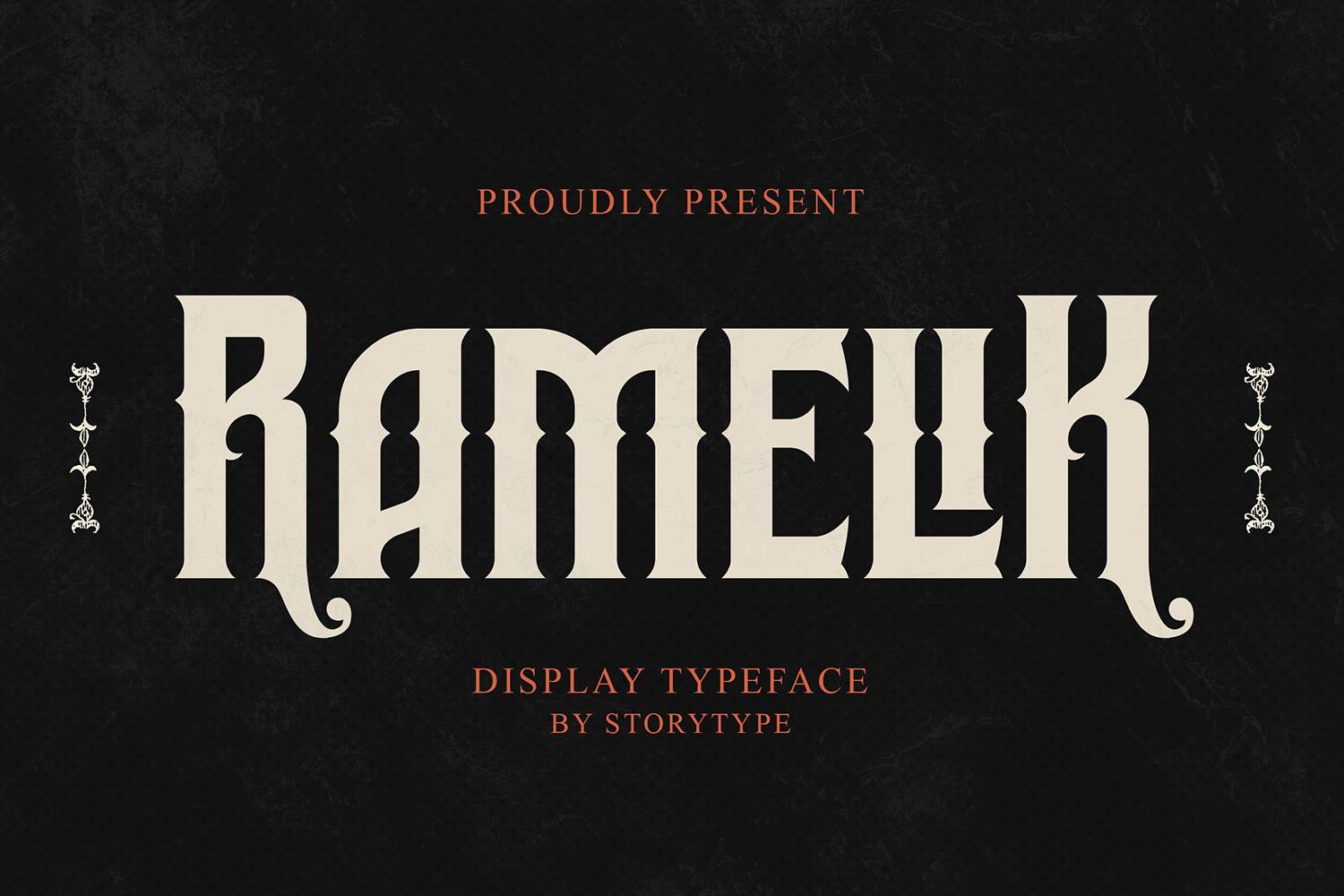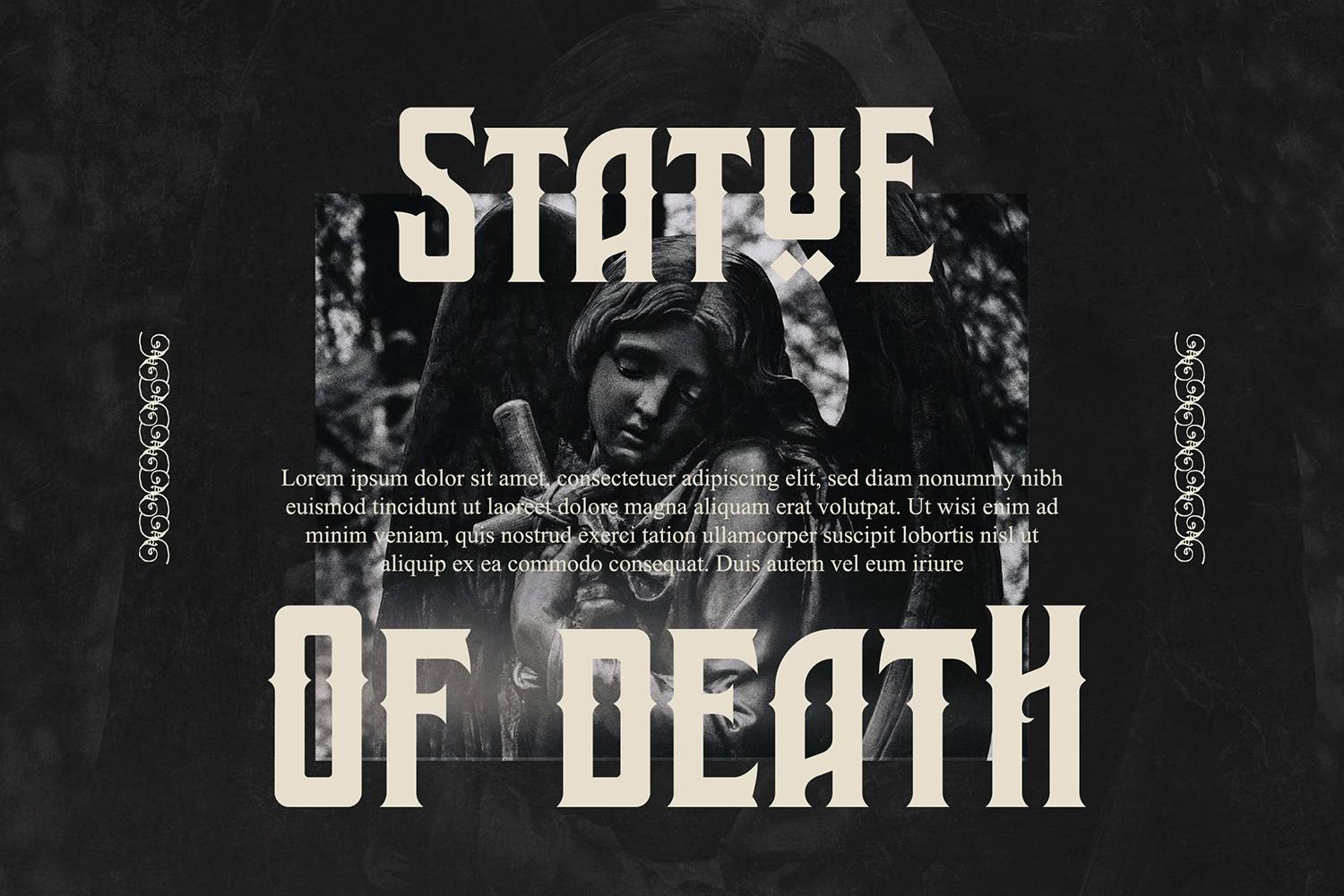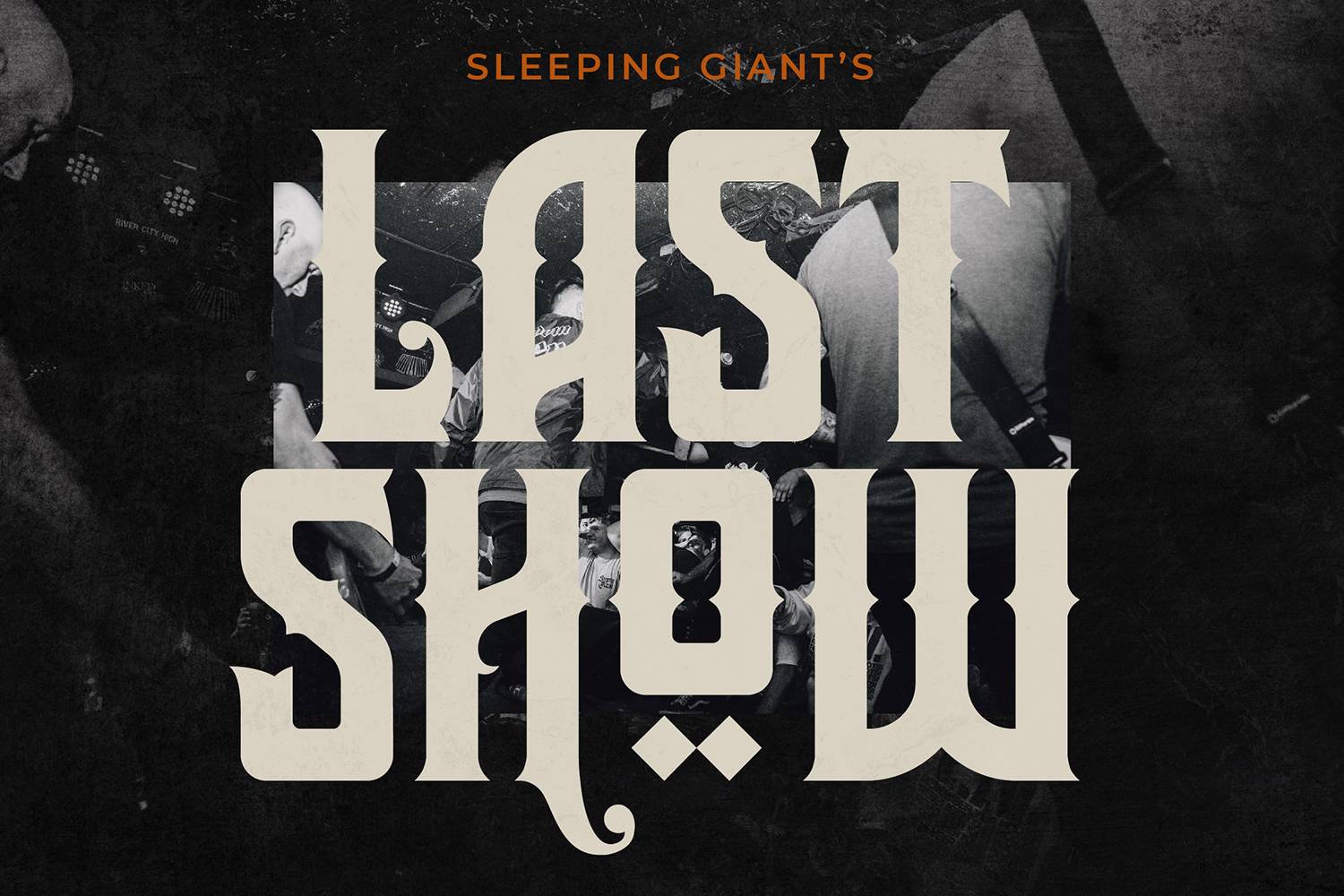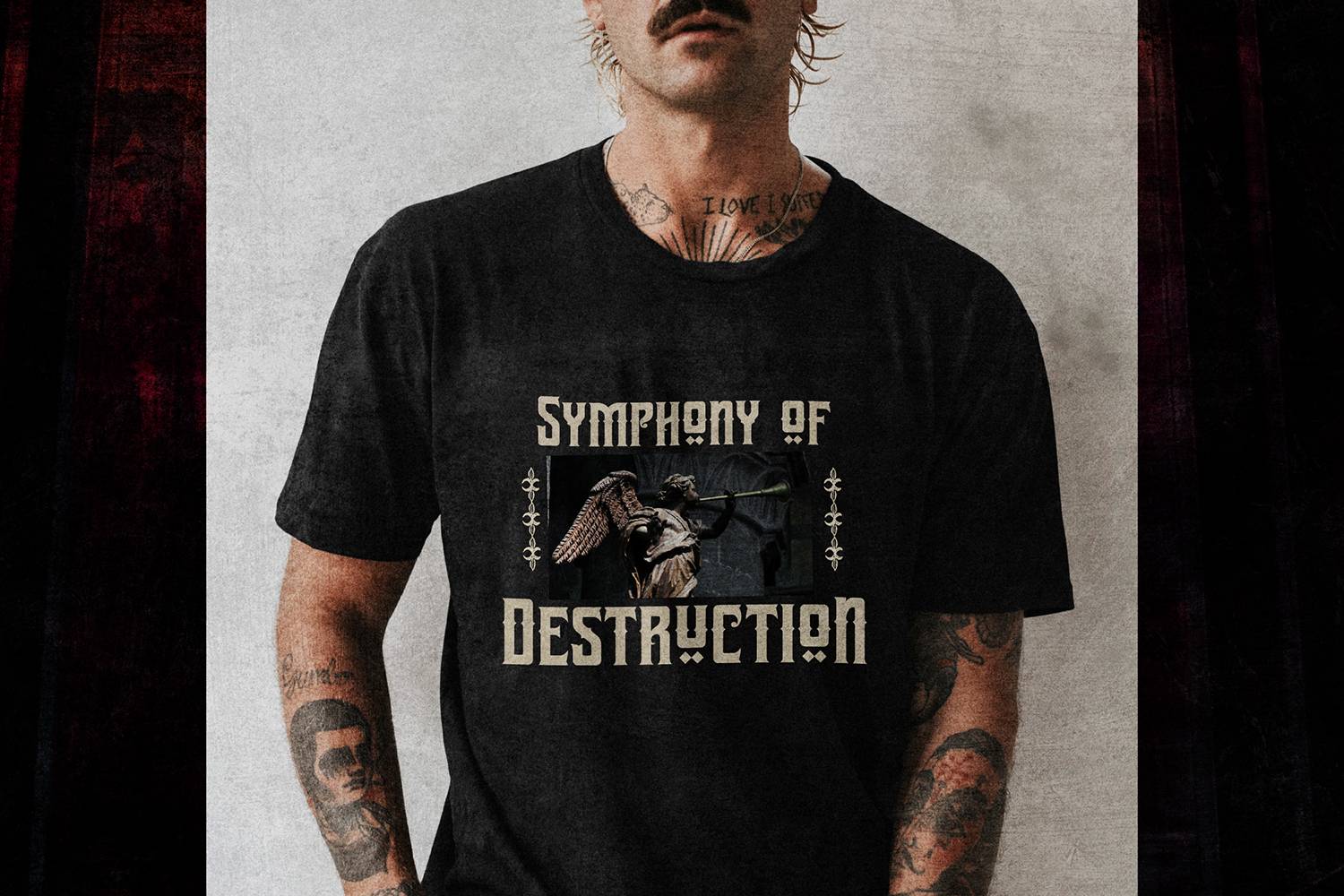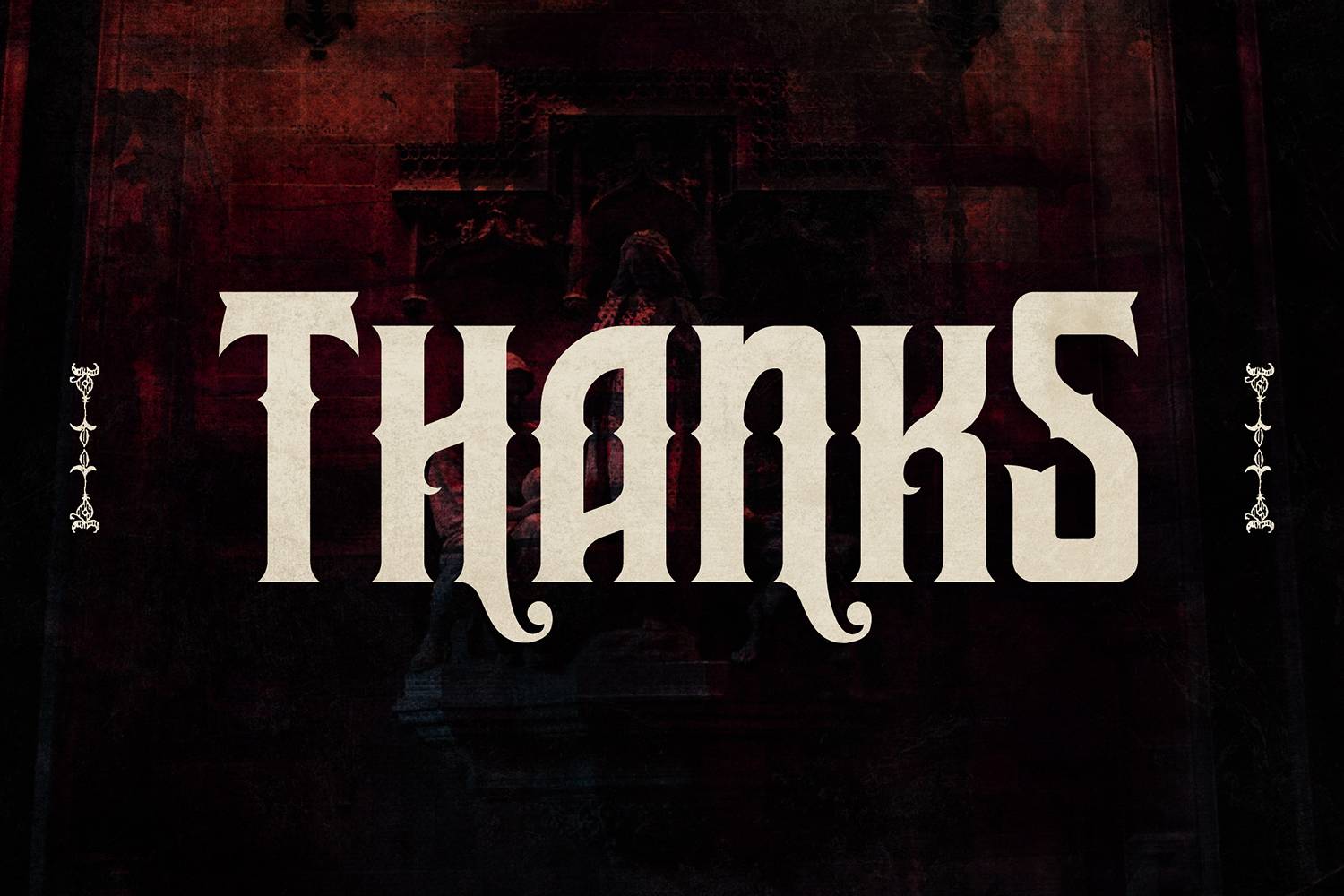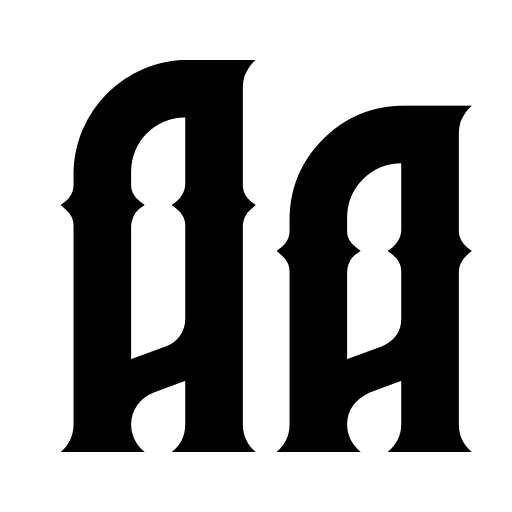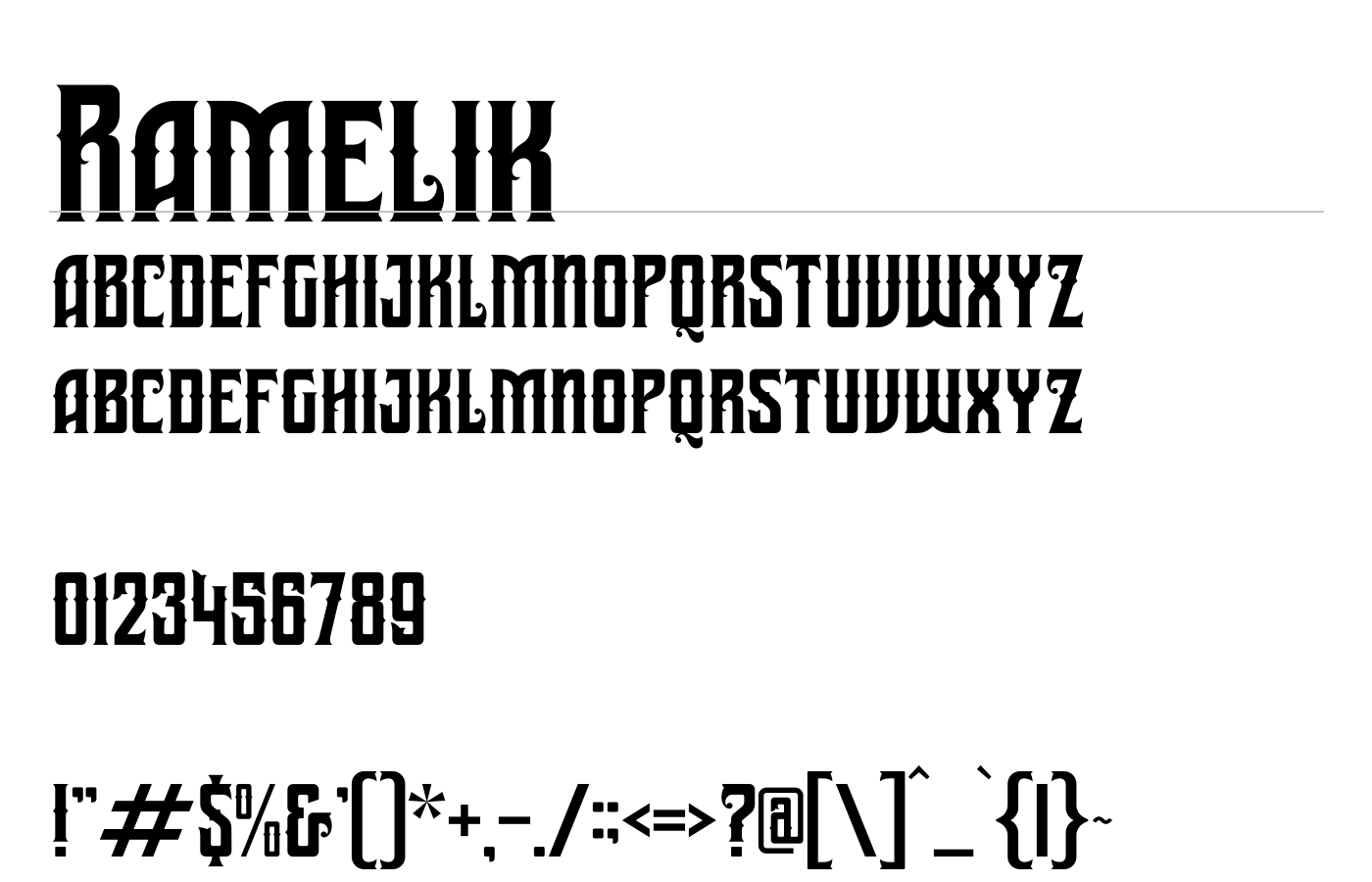
Ramelik is a bold, condensed serif typeface with a vintage, Gothic-inspired style characterized by strong vertical lines and distinct, sharp serifs. Its high contrast between thick and thin strokes, combined with intricate decorative terminal details, gives it a dramatic and authoritative presence, making it ideal for headlines, branding, and designs that require a historic or powerful impression. This font works best in display contexts where its unique character can stand out, such as logos, posters, and editorial titles.
Ramelik Font
About Ramelik Font